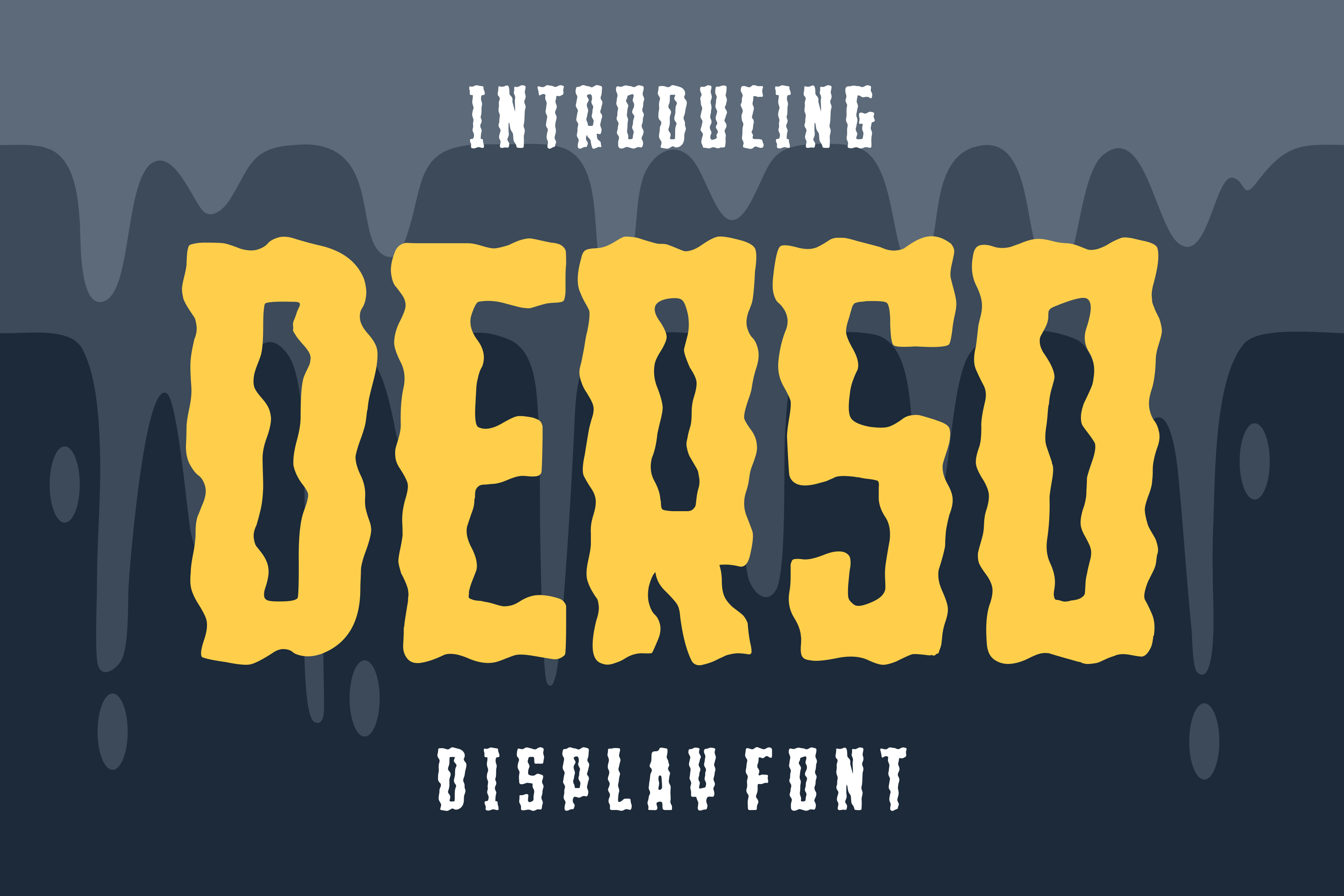
Derso - Groovy Font
Derso - Groovy Font Perfectly suited on print/screen. it’s perfect for Branding, name card, poster, logo, magazine, cover, banner, t-shirt and headers, or even large-scale artwork.